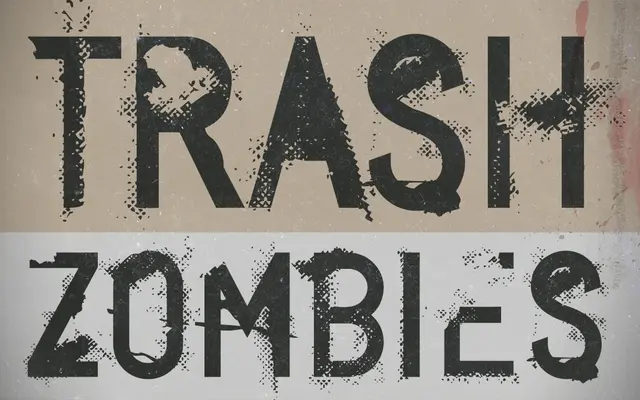
A DIN-influenced geometric sans designed for the corporate identity of the German Intelligence Agency, offered in five styles including an alternate letterset and a distressed variant.
Designed by Thomas Schostok for the corporate image of a German intelligence agency, CA BND draws on the austere tradition of DIN typefaces, with an unemotional but quietly detailed character the foundry describes as a dangerous functionalism. The family runs to five styles: Regular, Bold, Alternate Regular, Alternate Bold and a Trash cut, the last introducing a distressed texture to the otherwise controlled forms. Western Latin encoding covers standard European language needs.
Classified as sans-serif by the foundry; described as a DIN-like typeface, placing it firmly in the geometric/industrial sans tradition associated with German standards typography.